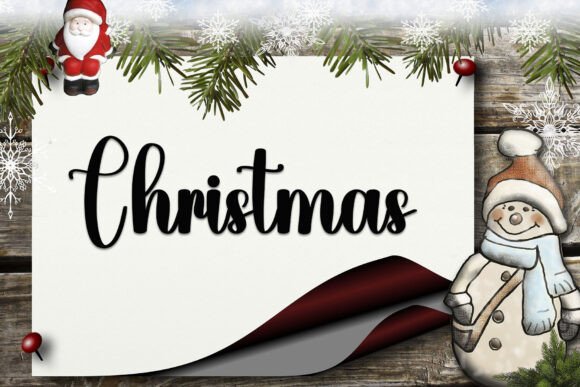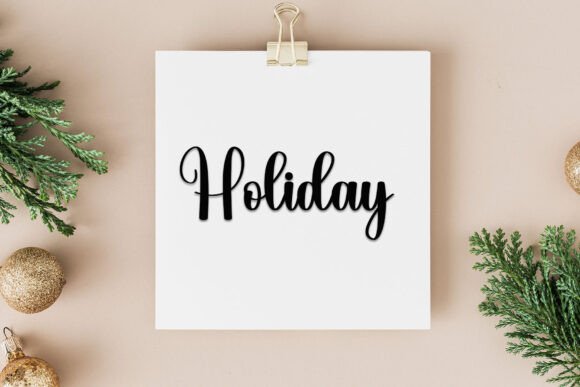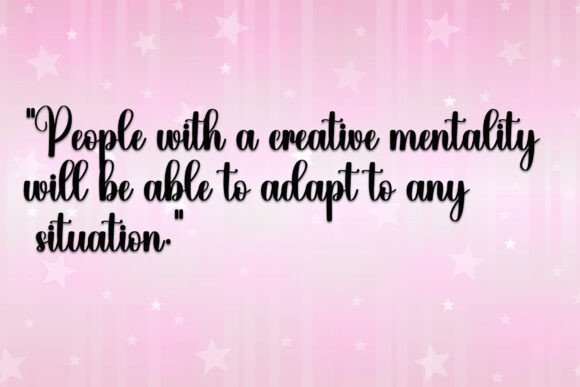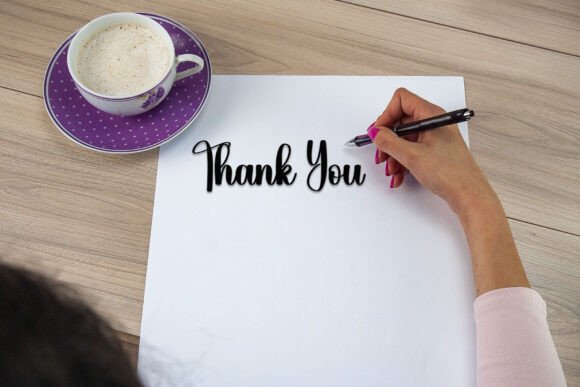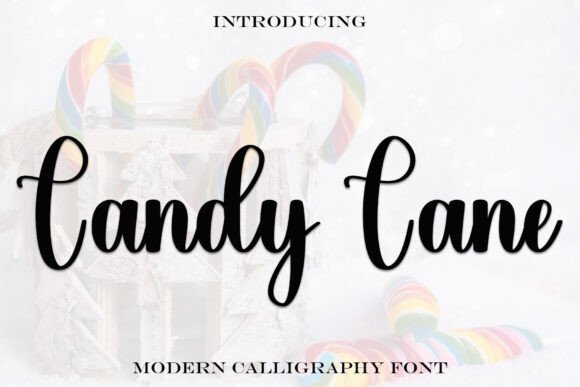
Candy Cane Font: Elevate Your Designs with a Touch of Elegance
In the world of typography, few fonts manage to capture the essence of both modernity and timeless elegance. The Candy Cane font, however, stands out as a remarkable exception. This trendy handwritten font brings a contemporary atmosphere to the table, combined with impeccable form, drawing inspiration from classic calligraphy. Whether you’re a designer looking to add a sophisticated touch to your projects or a crafter aiming to infuse your creations with a bit of elegance, the Candy Cane font is an excellent choice.
The Essence of Candy Cane Font
Candy Cane is not just another font; it’s an experience. Its design is rooted in the tradition of calligraphy, yet it carries a modern twist that makes it highly versatile. The font’s unique character lies in its ability to blend seamlessly into various design contexts, from festive holiday projects to elegant branding and packaging. Each letter in the Candy Cane font is crafted with precision, reflecting a perfect balance between fluidity and structure.
Key Features of Candy Cane Font
- Trendy and Handwritten: The Candy Cane font boasts a handwritten appearance that feels both contemporary and approachable. Its trendy vibe makes it perfect for designers looking to add a personal touch to their work.
- Contemporary Atmosphere: Unlike traditional calligraphy fonts, Candy Cane brings a fresh and modern feel to the table. This makes it highly adaptable to current design trends.
- Inspired by Timeless Classic Calligraphy: The font’s roots in classic calligraphy give it an air of sophistication and elegance. It captures the essence of traditional calligraphy while offering a modern interpretation.
- Impeccable Form: One of the standout features of the Candy Cane font is its impeccable form. Each letter is carefully designed to ensure clarity and beauty, making it suitable for a wide range of applications.
Applications of Candy Cane Font
The versatility of the Candy Cane font makes it an invaluable asset for designers and crafters. Here are some of the many ways you can use this elegant font:
- Branding and Logo Design: Add a touch of elegance to your brand’s identity with the Candy Cane font. Its unique and sophisticated appearance can help your brand stand out.
- Holiday Projects: The name “Candy Cane” might evoke the spirit of Christmas, but this font’s versatility means it can be used in various festive contexts or simply as a stylish addition to any design project.
- Packaging Design: Elevate your product packaging with the Candy Cane font. Its elegant appearance can add a luxurious feel to your products.
- Stationery and Invitations: Whether you’re designing wedding invitations, greeting cards, or personal stationery, the Candy Cane font can add a classy and sophisticated touch.
Tips for Using Candy Cane Font Effectively
- Pair with Complementary Fonts: While the Candy Cane font is elegant on its own, pairing it with complementary fonts can enhance its beauty. Opt for simple, clean fonts that don’t compete with its sophisticated appearance.
- Adjust Letter Spacing: For optimal readability, pay attention to letter spacing. Adjusting the kerning can make a significant difference in how your text is perceived.
- Experiment with Colors: The Candy Cane font works well with a variety of colors. Experiment with different palettes to find the combination that best suits your design.
The Candy Cane font is a stylish and versatile addition to any designer’s toolkit. Its blend of contemporary flair and classic elegance makes it suitable for a wide range of projects. Whether you’re aiming to create sophisticated branding, beautiful stationery, or festive holiday designs, the Candy Cane font is sure to elevate your work. Embrace the elegance and class it brings to your designs, and discover the difference that a well-crafted font can make.